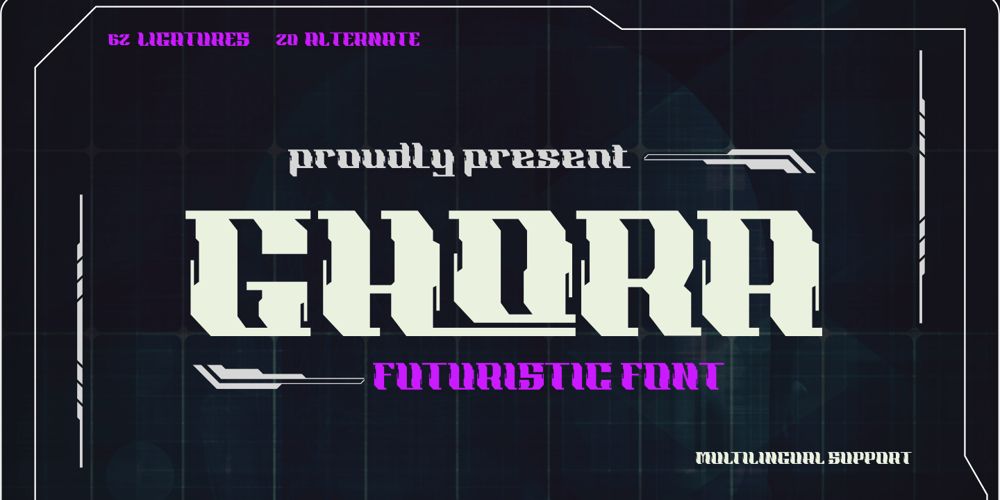
Ghora Font Family was designed by Rozikan and published by Twinletter. Ghora contains 1 styles and family package options. Do you need a cyberpunk theme? Introducing our newest font called Ghora. A futuristic font that will mark your business as the most unique on the market. Designed with every detail in mind, this typeface has a very futuristic look. You can use this typeface for sci-fi-themed logos, games, movies, posters, designs, and promotional publications.What’s Included :- File font- All glyphs Iso Latin 1- Alternate, Ligature- Simple installations- We highly recommend using a program that supports OpenType features and Glyphs panels like many Adobe apps and Corel Draw so that you can see and access all Glyph variations.- PUA Encoded Characters – Fully accessible without additional design software.- Fonts include Multilingual support